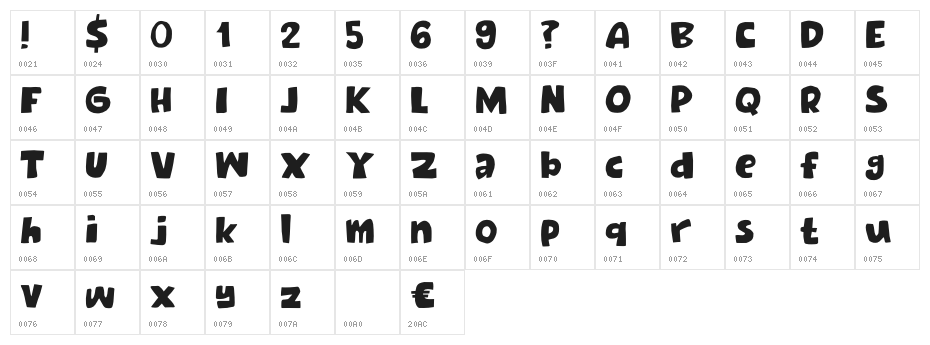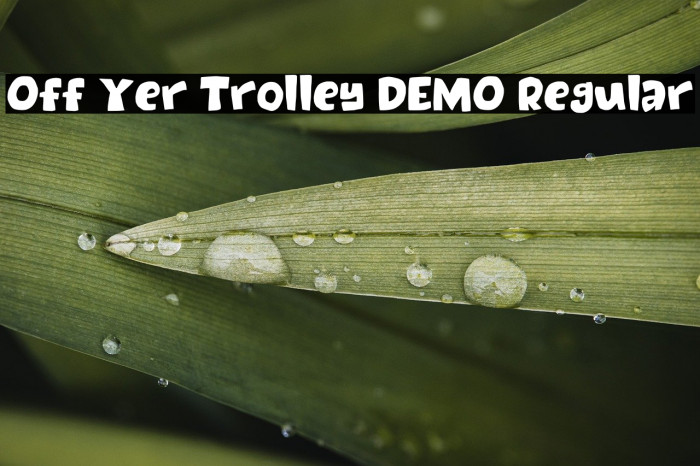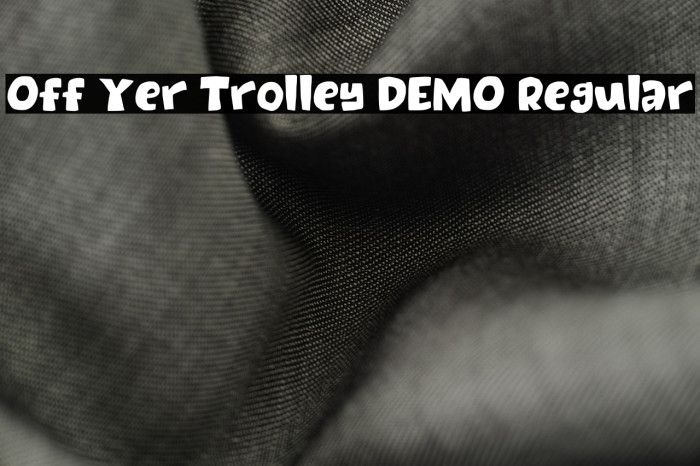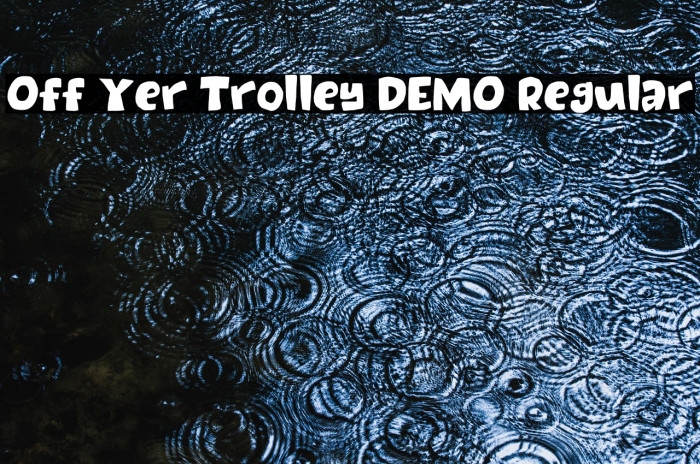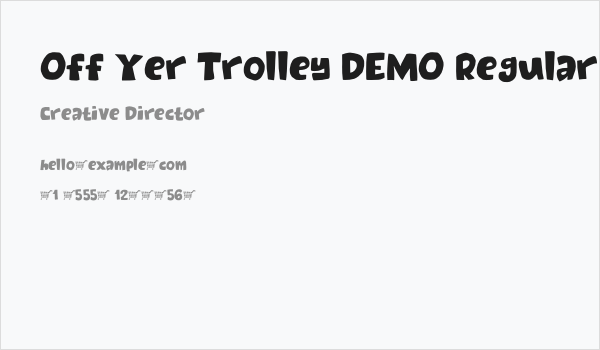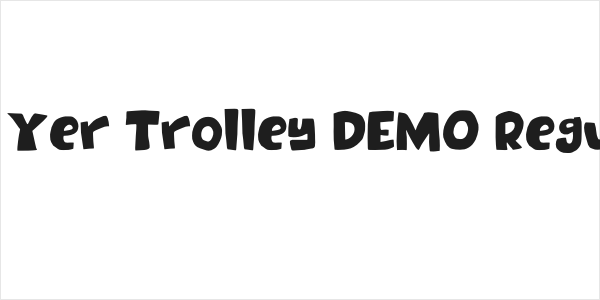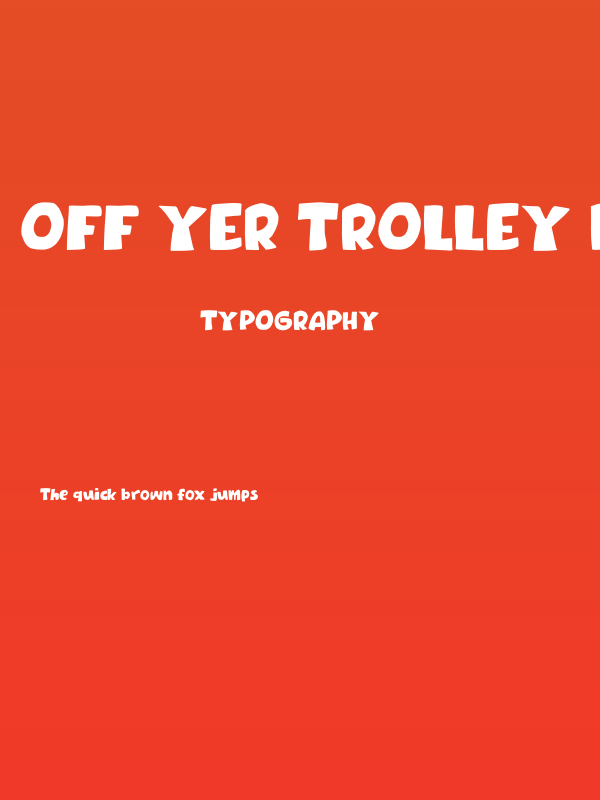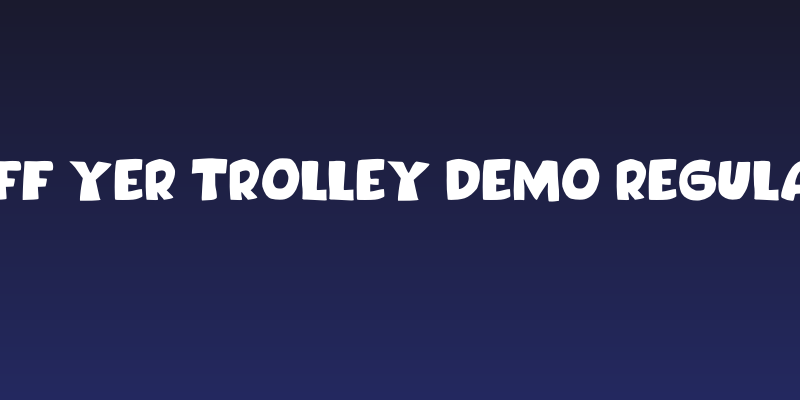
Off Yer Trolley DEMO Regular Font
Off Yer Trolley DEMO Regular Description
This playful and bold font features a unique, hand-drawn style with exaggerated curves and a slightly irregular baseline, giving it a whimsical and informal appearance. The characters are thick and rounded, with a cartoonish quality that adds a sense of fun and creativity. The uppercase and lowercase letters maintain a consistent style, while the numbers and special characters integrate seamlessly with the overall design. The font's distinctiveness is further enhanced by its wide, open counters and generous spacing, making it highly legible even at smaller sizes. This font is perfect for projects that require a touch of humor and personality.
| Proposed Projects | Ideal for children's books, comic strips, playful branding, and creative posters. |